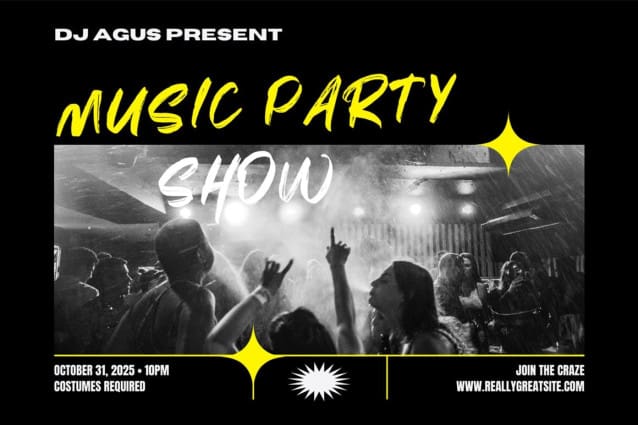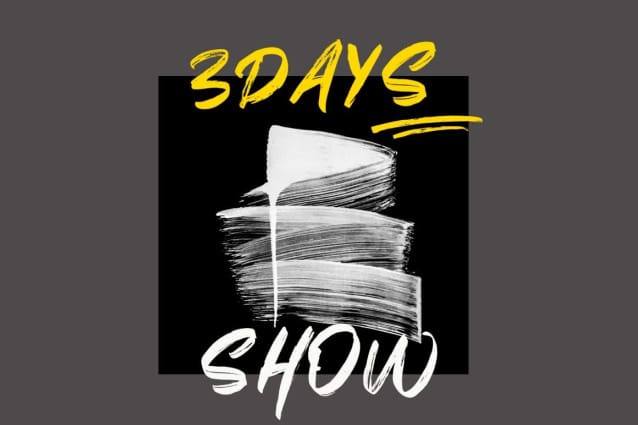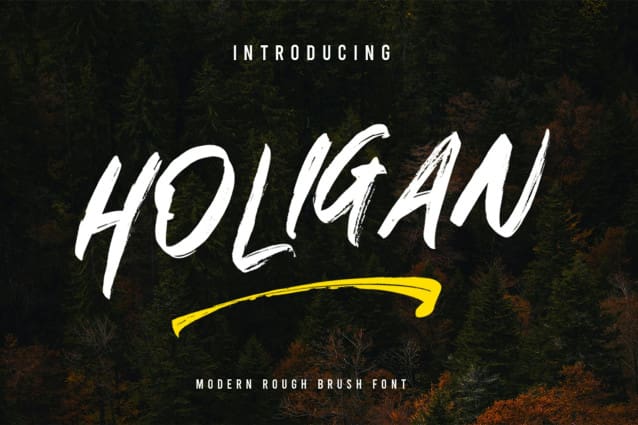
Holigan Brush Font
Holigan Brush Font is brush font with natural rough dry brush strokes, and the stroke of hand sharp and quickly. You can use and enjoy Mattsolar, for anything from promotional material and handwritten quotes, to product packaging, merchandise and branding projects
You can apply them to designs like social media posts, logos, merchandise, book covers, posters, video content thumbnails, quotes, landing pages, wedding invitations and much more which you can make with this great item for any design.